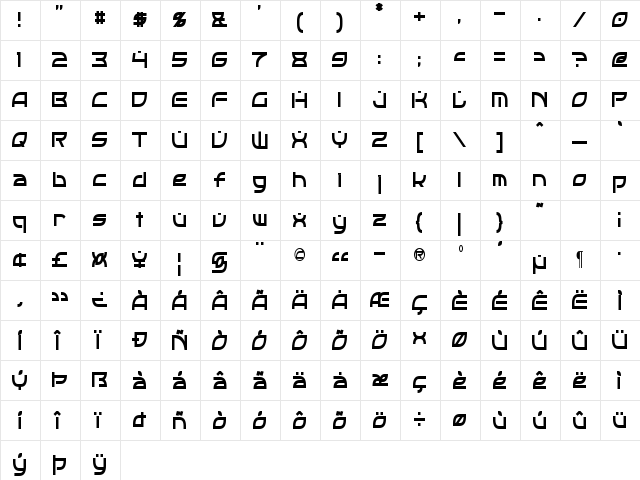
OpTic Condensed Regular
| Designer | Neale Davidson |
Design Context for OpTic Condensed Typeface
OpTic Condensed is a composed and adaptable typeface that performs quietly and consistently across a wide range of design contexts. The condensed width makes it efficient for tight spaces without sacrificing legibility.